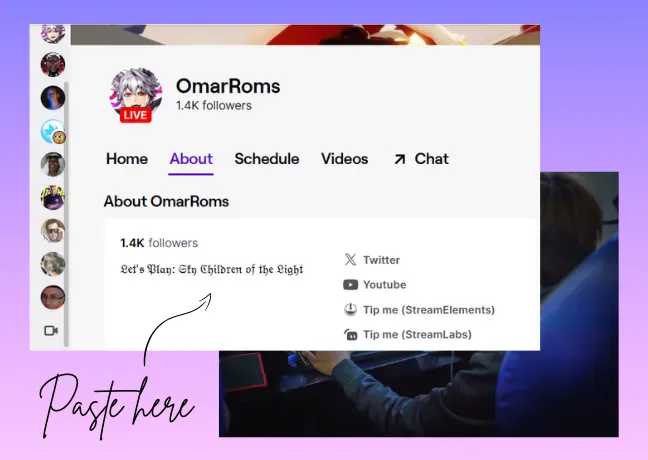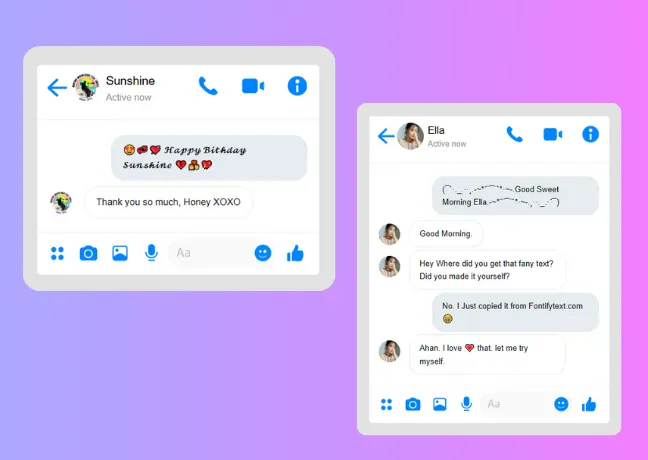
Midnight Flourish
Type your text once and preview it in 474 Unicode styles. Copy the one you like and paste it into an Instagram bio, TikTok caption, Discord name, or game username.
Copy-ready text styles
Type your text once, then compare the results across every style at the same time — cursive, gothic, bubble, swirly, and dozens more. Each one is made of Unicode characters, so it pastes as plain text anywhere: Instagram bios, Discord names, WhatsApp status, captions, and gaming usernames. No app, keyboard install, or account needed, and the style survives even where a platform strips normal formatting. Scan the live preview, pick the look that still reads clearly on a small screen, and copy it straight into the field you're editing. For profiles, captions, and usernames, a style that's easy to read usually wins over one that's loaded with symbols.
You've probably noticed bios and captions that use bold, cursive, or unusual lettering that a normal keyboard can't type. Most of the time, that's not a custom font at all — it's ordinary Unicode text made of characters that already look styled.
FontifyText turns whatever you type into dozens of those styled versions at once, sorted into 32 categories for different situations — cursive for a bio, bold for emphasis, gothic for a darker aesthetic, small caps for a cleaner look, and more. You see every option side by side, so you can compare before you commit to one.
Because these are real Unicode characters and not images or font files, they paste as plain text into almost any input box — social apps, chat clients, documents, even email. The tradeoff is readability: some styles use characters far outside the ones a screen reader or an older device expects, so they can look broken in the wrong place. That's why it's worth previewing a style before pasting it somewhere that matters, like a resume or a work message.
Used well, styled text is a small way to make a profile, username, or line of text stand out without installing anything or creating an account.
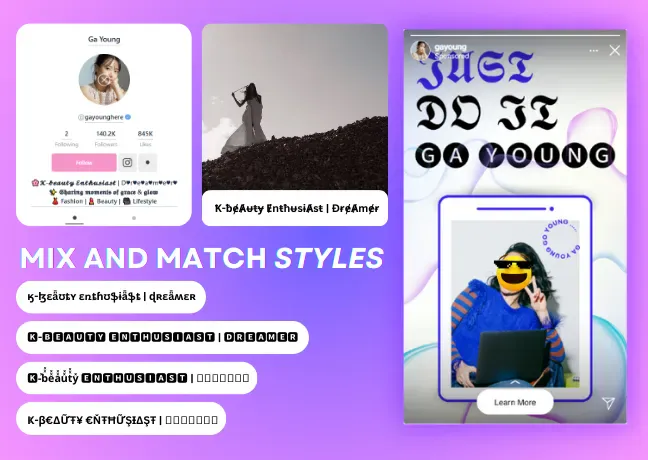
Unicode is the standard that assigns every letter, number, symbol, and emoji in the world's writing systems its own unique code point. It's what lets a device in one country display text typed on a device in another.
Among those thousands of code points are entire alphabets of stylized letterforms — bold, italic, script, double-struck, and more — that were originally designed for math and typesetting notation, not for texting. FontifyText maps your input onto those alphabets, so "hello" can become "𝐡𝐞𝐥𝐥𝐨" or "𝓱𝓮𝓵𝓵𝓸" instantly.
Because each styled letter is still just a Unicode character, it copies and pastes like any other text — no image, no font file, no special app required.
Enter a word or phrase in the box above, then jump to a category if you already know the look you want.
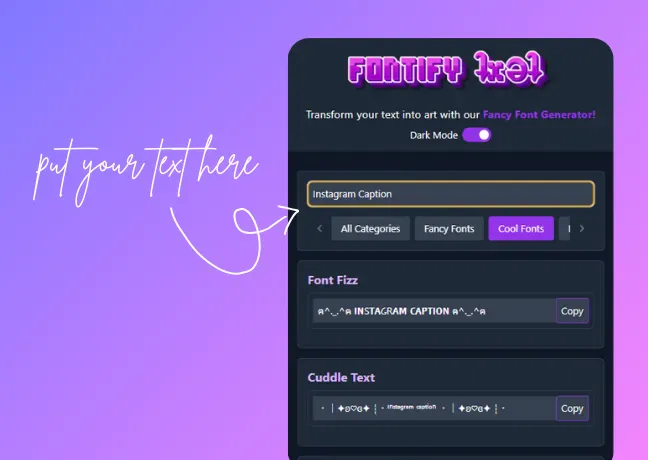
Every style updates live as you type, so you can scan the results and pick the one that fits your bio, caption, or username.
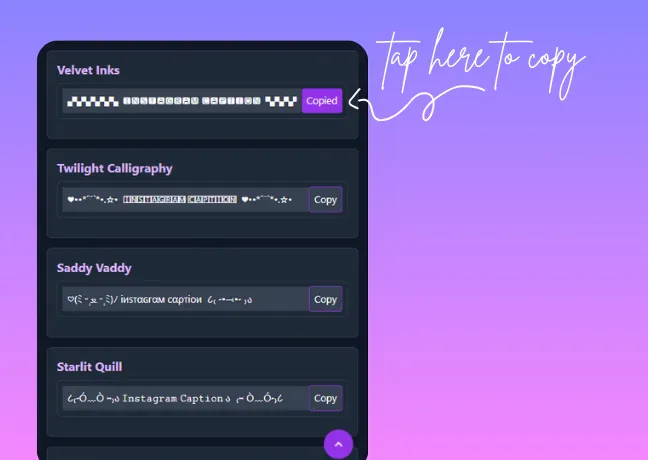
Click copy on the style you want, then paste it wherever you need it — a social profile, a chat, or a design project.
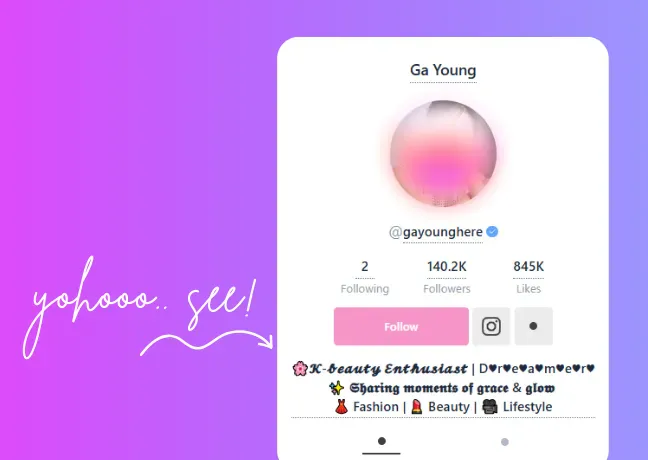
Pro Tip: Mix two styles in the same line — a bold name with a small-caps tagline, for example — for a cleaner look than stacking symbols.
Text transformed with magical and celestial emojis
Text transformed into a floral style with symbols
Text transformed with heart symbols
Text transformed with decorative emojis and symbols
Swirly-styled text transformation
Gaming-style text with symbols and emojis
Custom symbolic style with alphabets, symbols, and emojis
Eye-catching fancy text transformation
Text converted into cursive, handwritten style
Text converted into small alphabets
Users of the Fontify text generator often use fancy text in creating headlines and titles in Google Docs and Google Sheets. Fancy fonts can be used to highlight key points, quotes, or important sections.
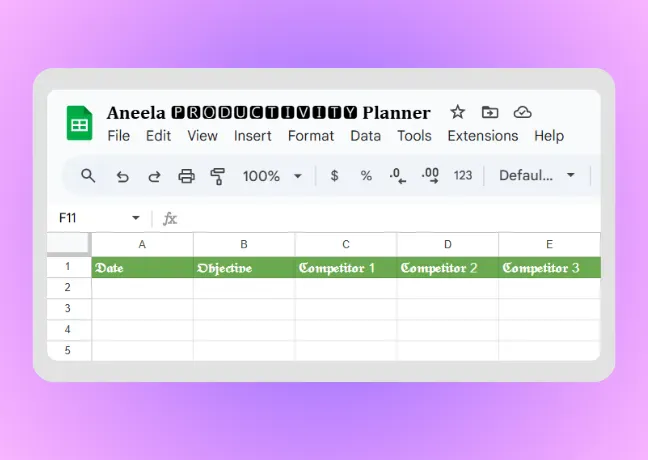
Teachers can style titles to emphasize key points in projects and presentations. Students can use special characters to make notes stand out.